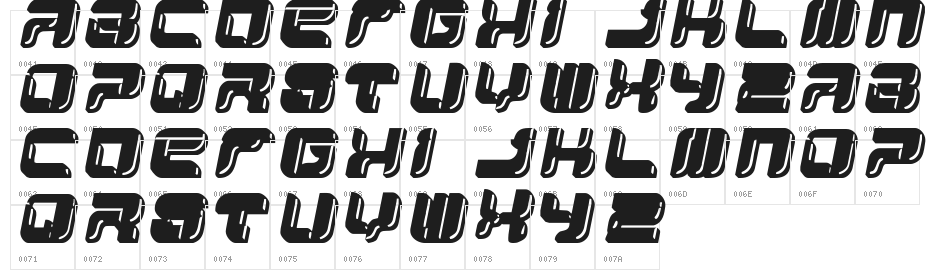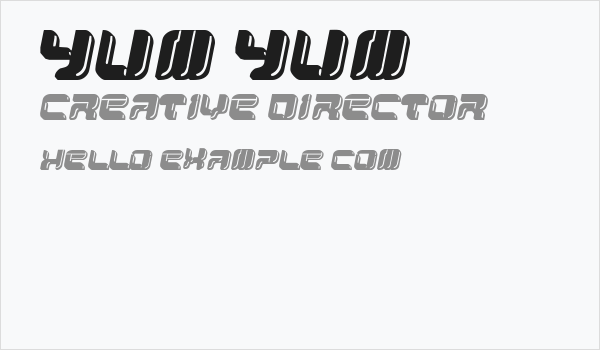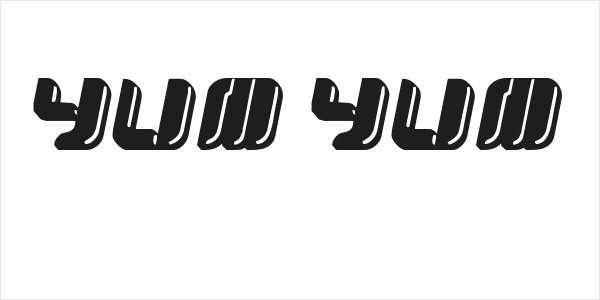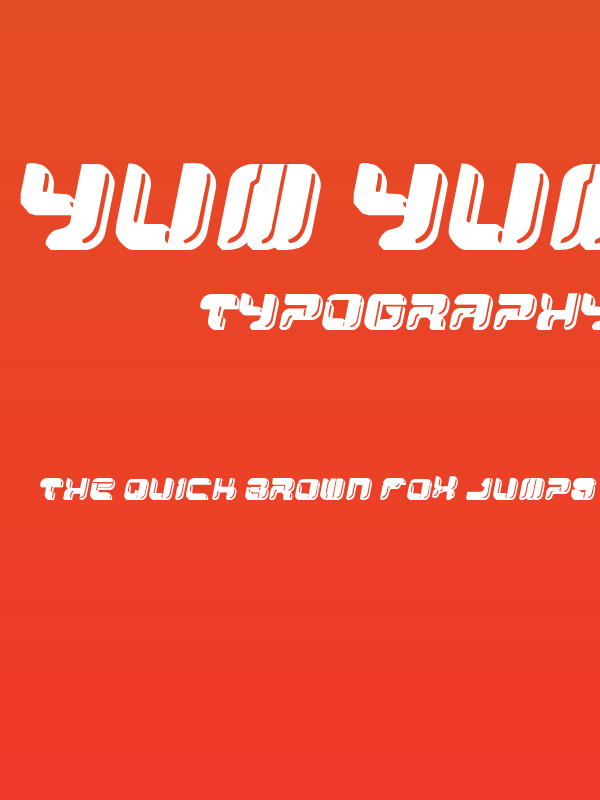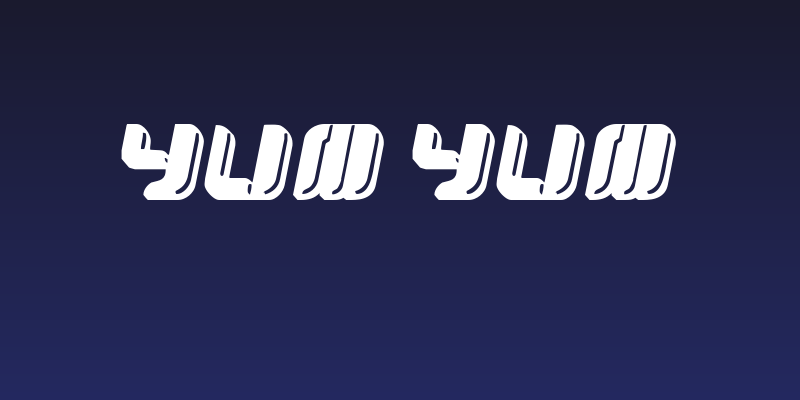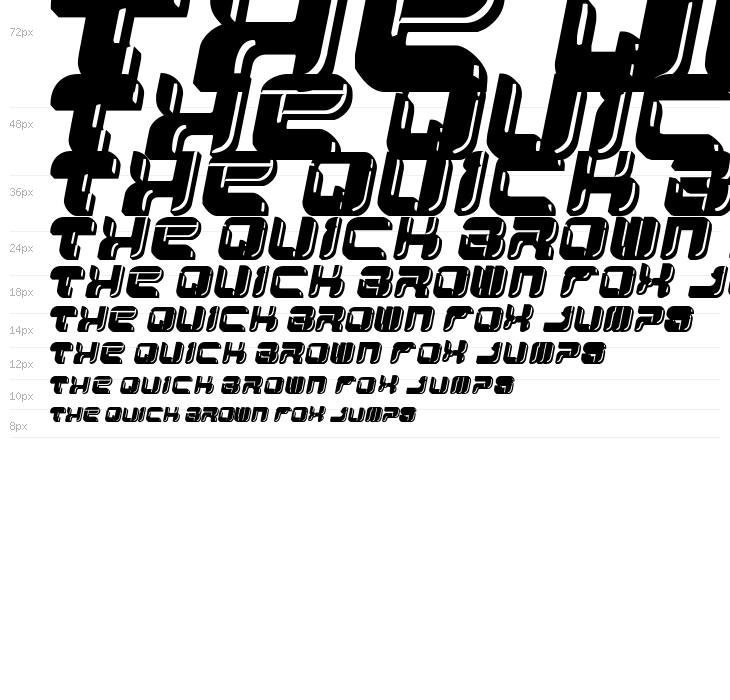
YUM YUM Font
YUM YUM Description
This font features a bold, futuristic design with a distinct geometric style. The characters are constructed with thick, block-like forms that incorporate sharp angles and smooth curves, creating a dynamic and eye-catching appearance. The use of negative space within the letters adds a unique visual interest, making the font stand out. Its boldness and modern aesthetic make it suitable for attention-grabbing headlines or logos. The font's design is consistent across uppercase and lowercase letters, maintaining a cohesive look throughout.
| Weight | chunky |
| Proposed Projects | Ideal for sci-fi themed projects, modern branding, tech company logos, or futuristic event posters. |